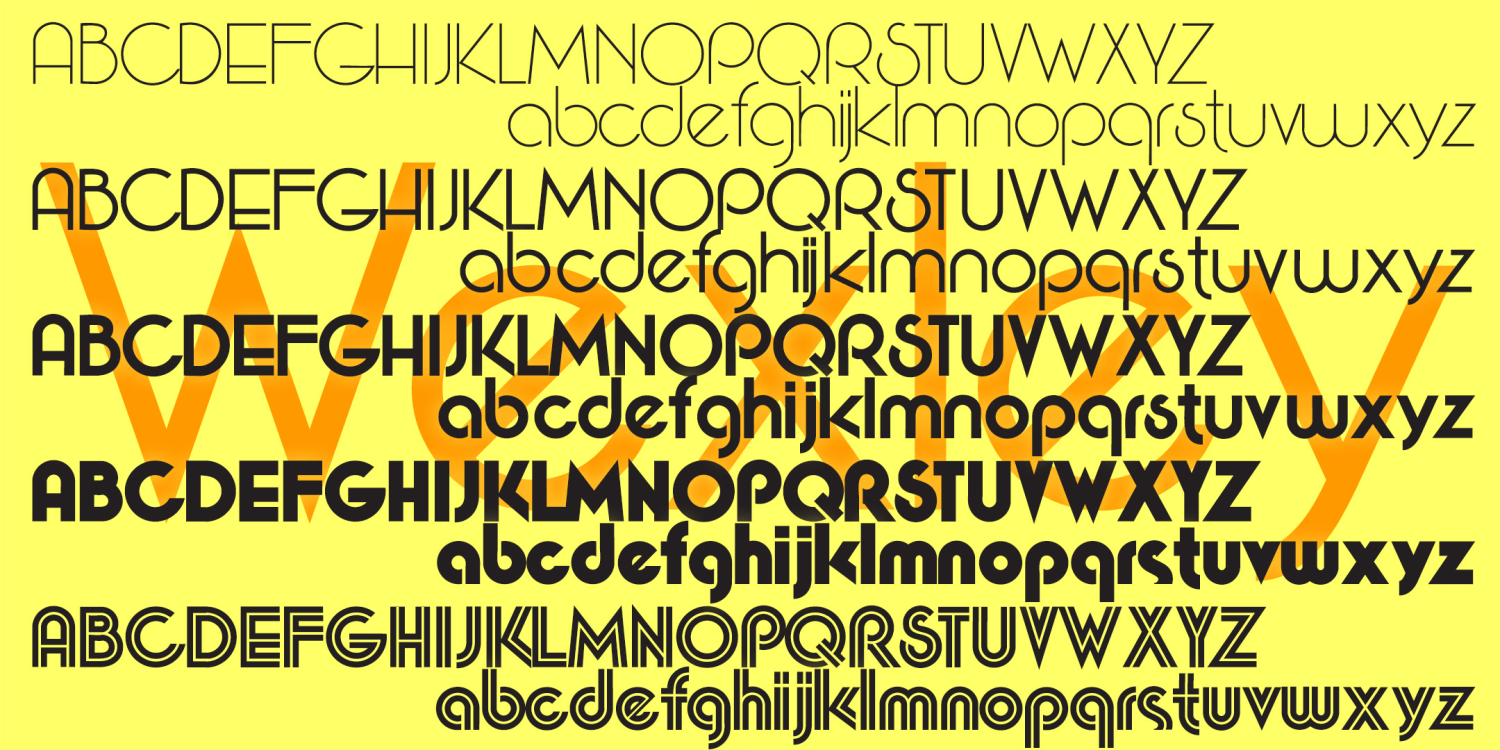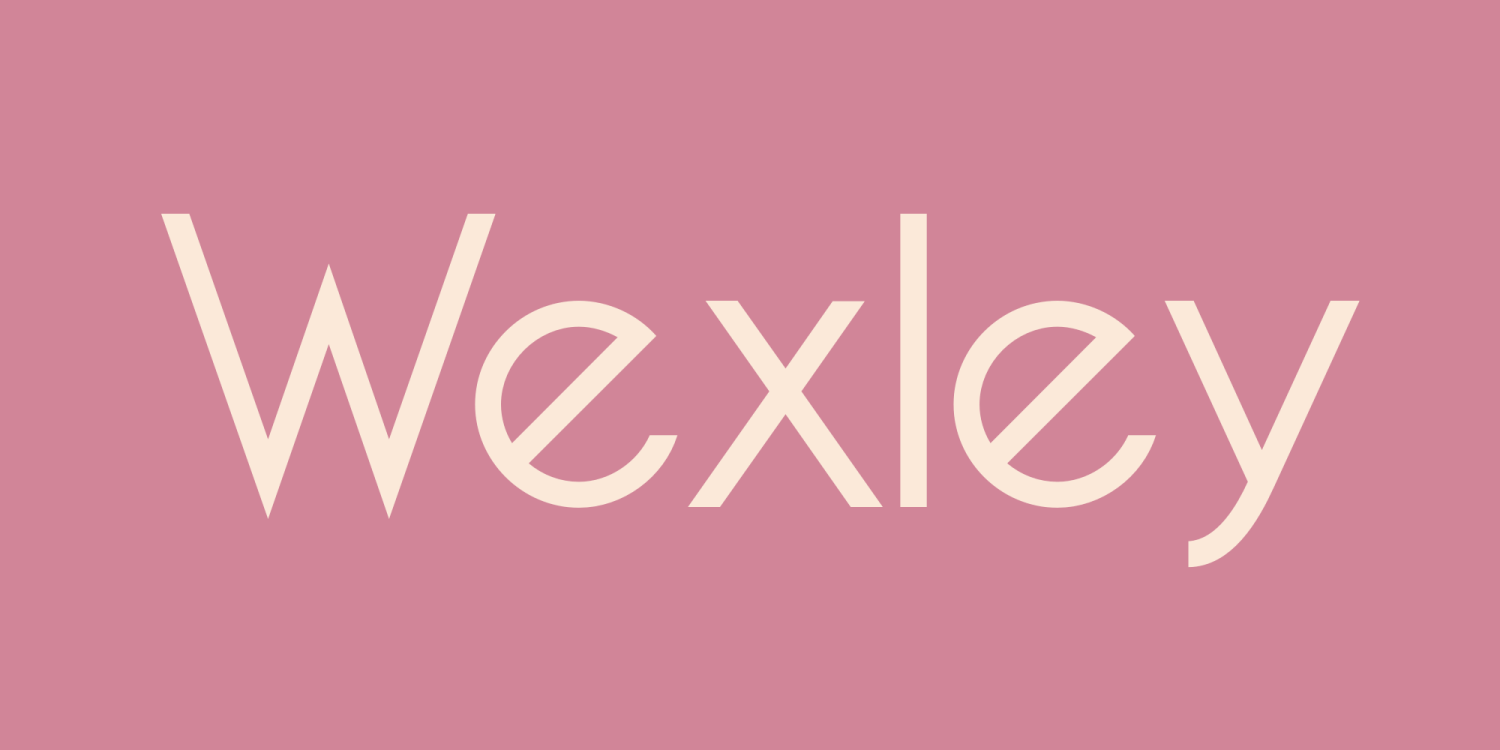
Wexley
Wexley is my digital interpretation of an unfortunately forgotten analog font set called Wexford in the geometric Bauhaus tradition. The original was designed by Richard A Sclatter and released by VGC in 1972. Working from period sources, I've drawn my versions of four weights, expanding the character set and including a couple alternate characters. The Inline is an invention, very much in the 70s spirit.